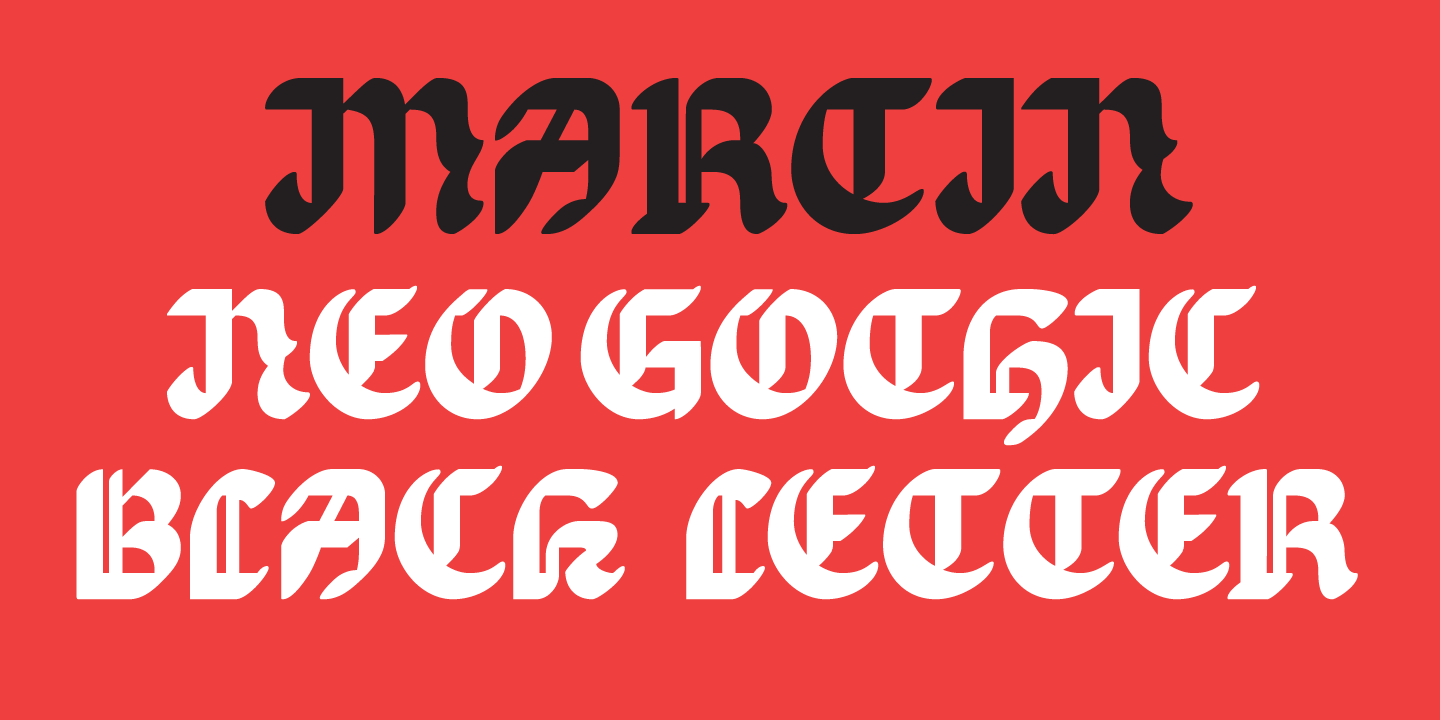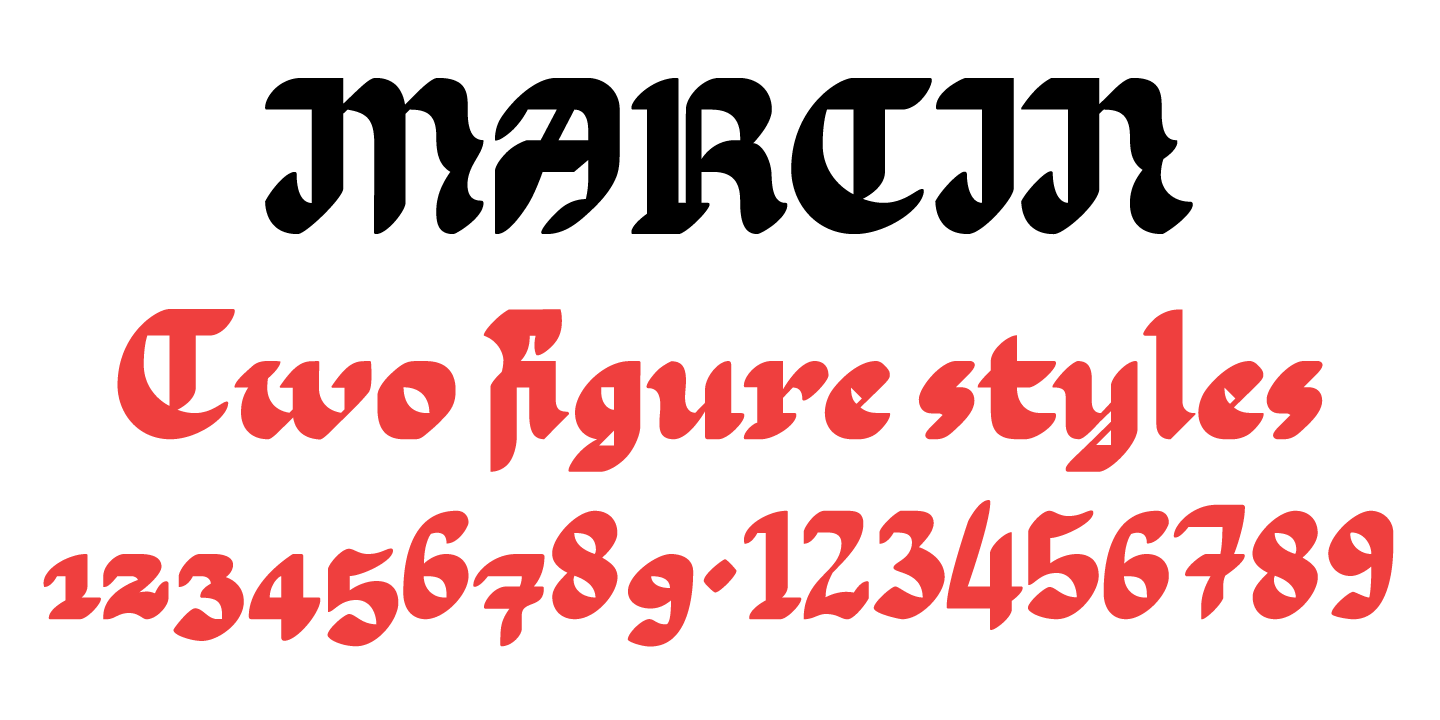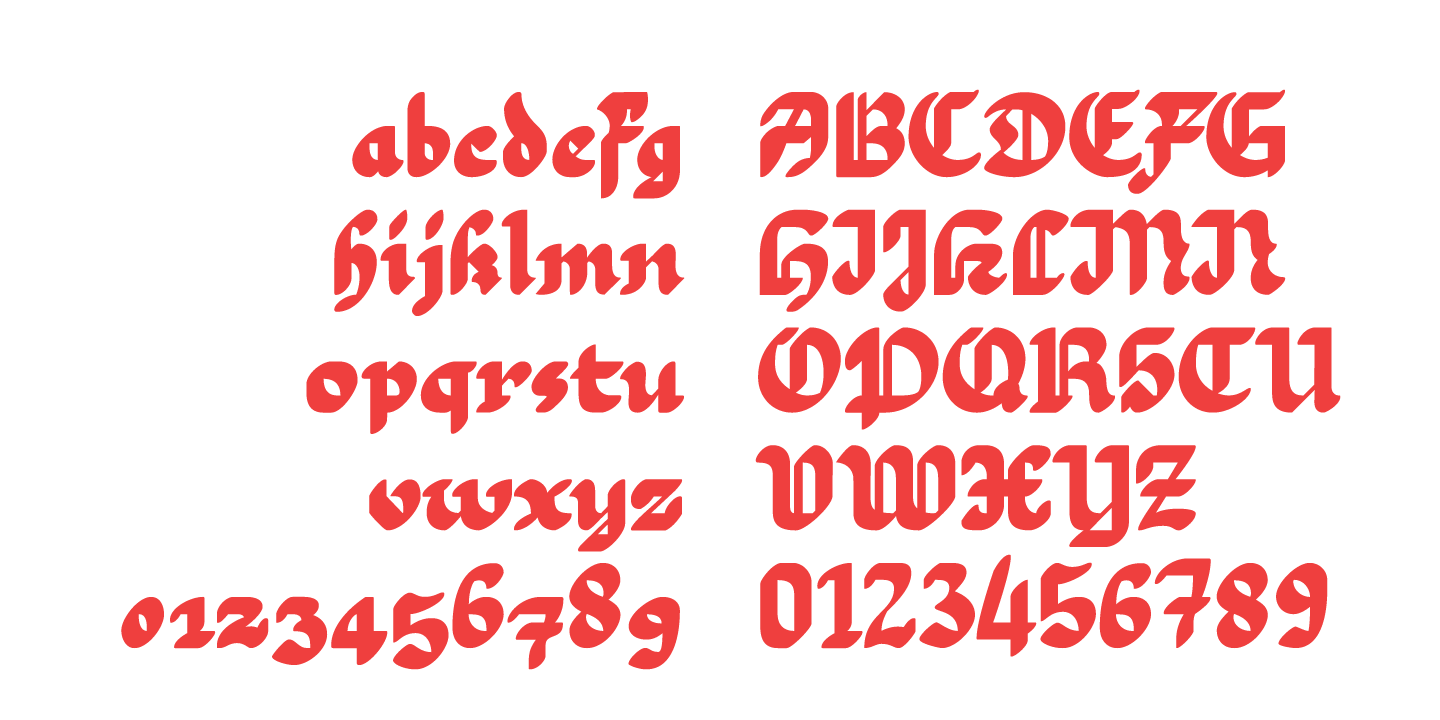
EB Martin
Font Family by Fenotype
Martin is a quirky modern blackletter, inspired by several traditional styles. Despite the organic feel, its construction is entirely geometric.